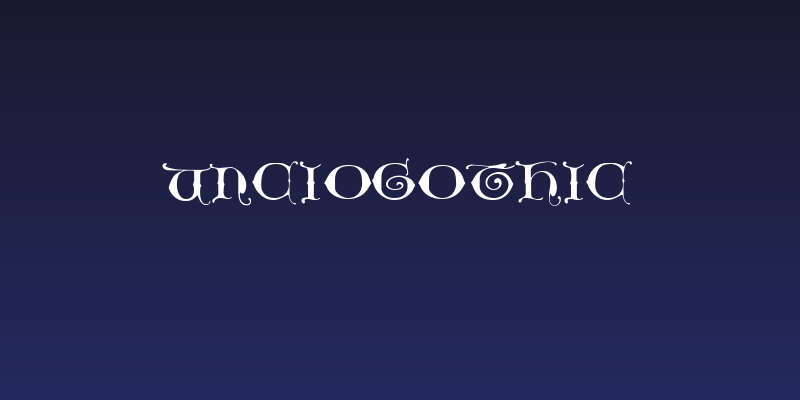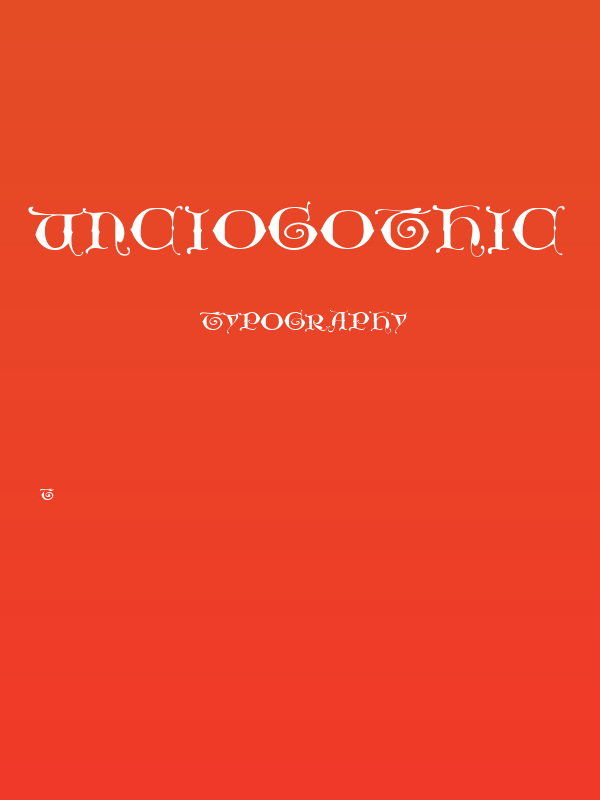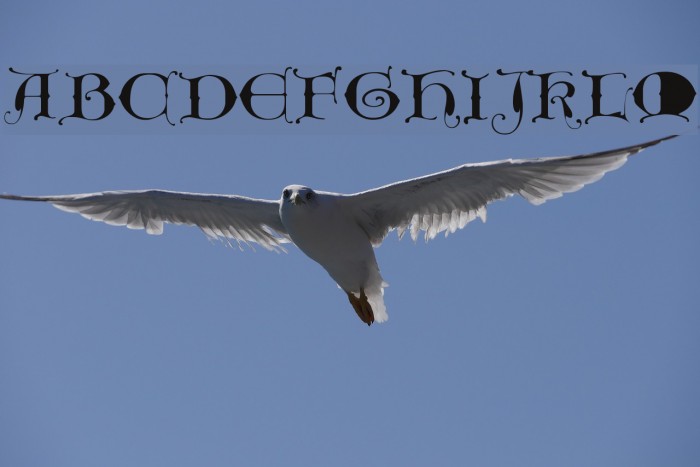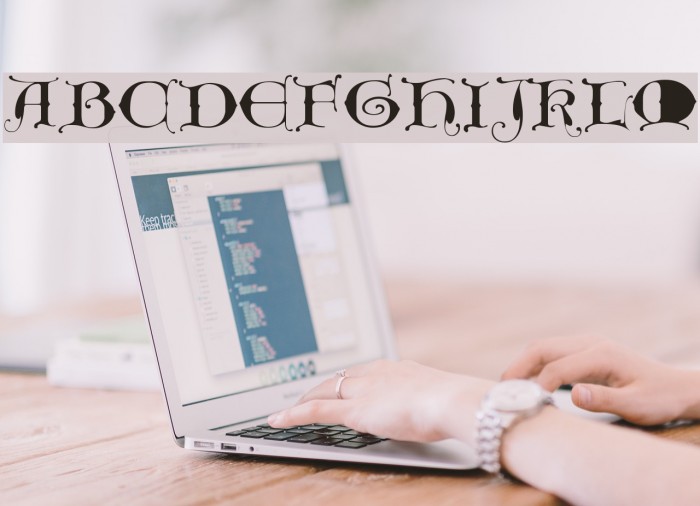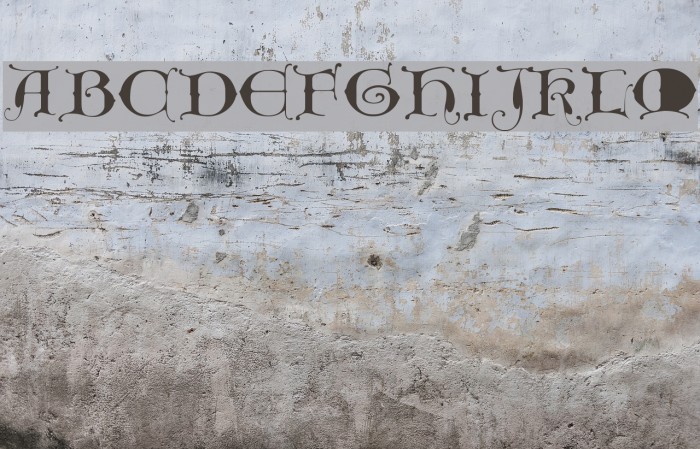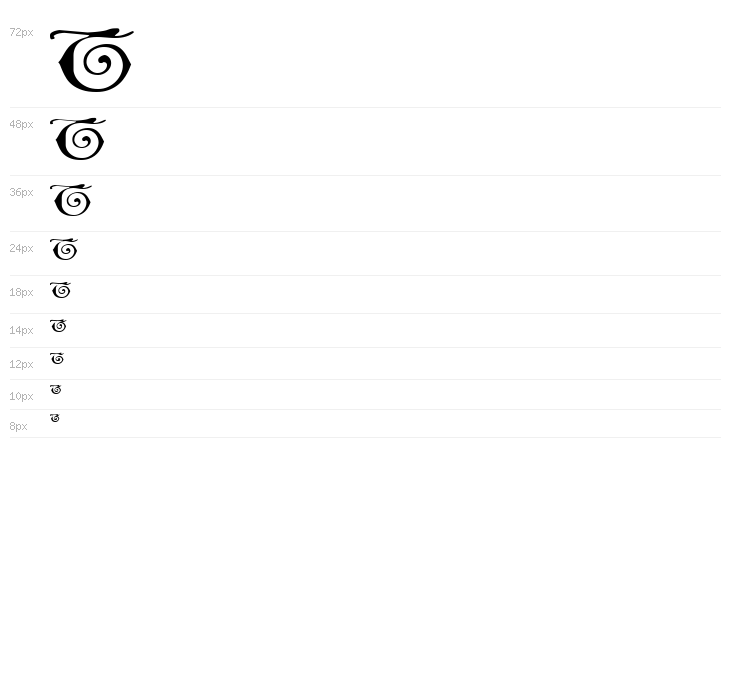
UncioGothic Font
UncioGothic Description
This font features an intricate and decorative style, reminiscent of Gothic and medieval calligraphy. The characters are adorned with elaborate flourishes and swashes, giving them a highly ornamental appearance. The uppercase letters are particularly striking, with bold strokes and unique embellishments that create a sense of grandeur and elegance. The overall design is complex, with a high level of detail that makes each letter stand out individually. This font is ideal for projects that require a touch of historical or fantasy-themed aesthetics.
| Proposed Projects | Perfect for fantasy book covers, medieval-themed event invitations, or historical posters. |